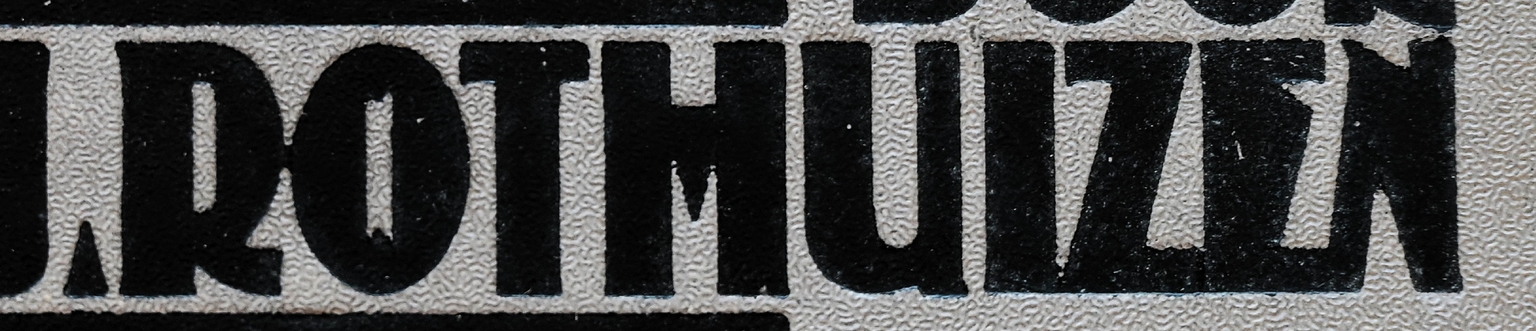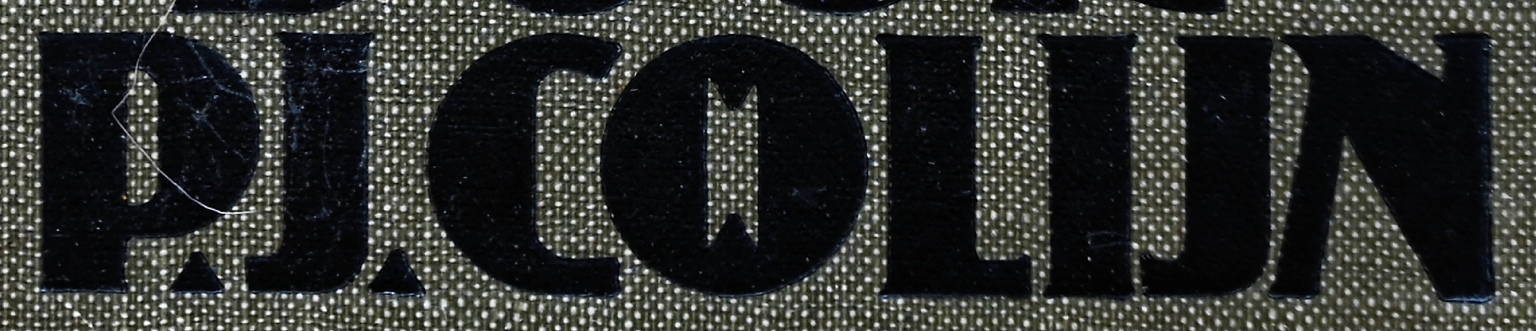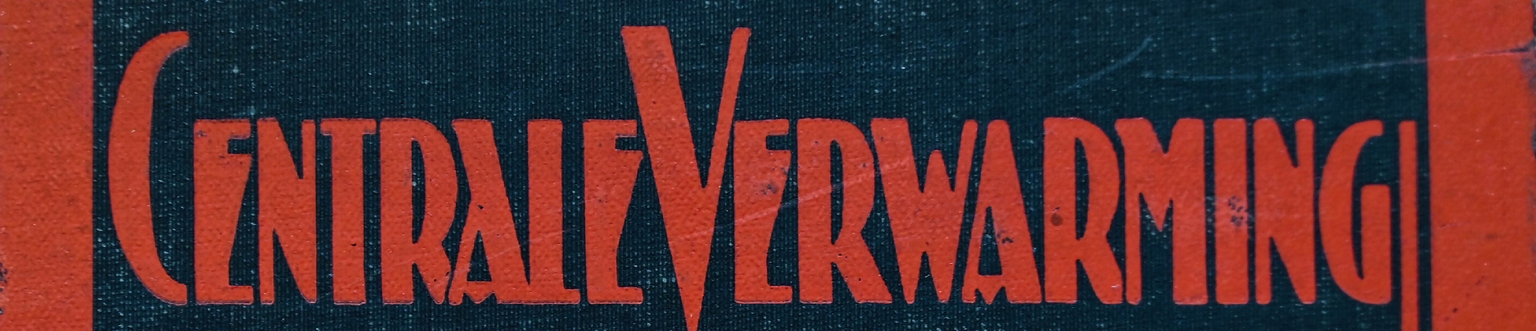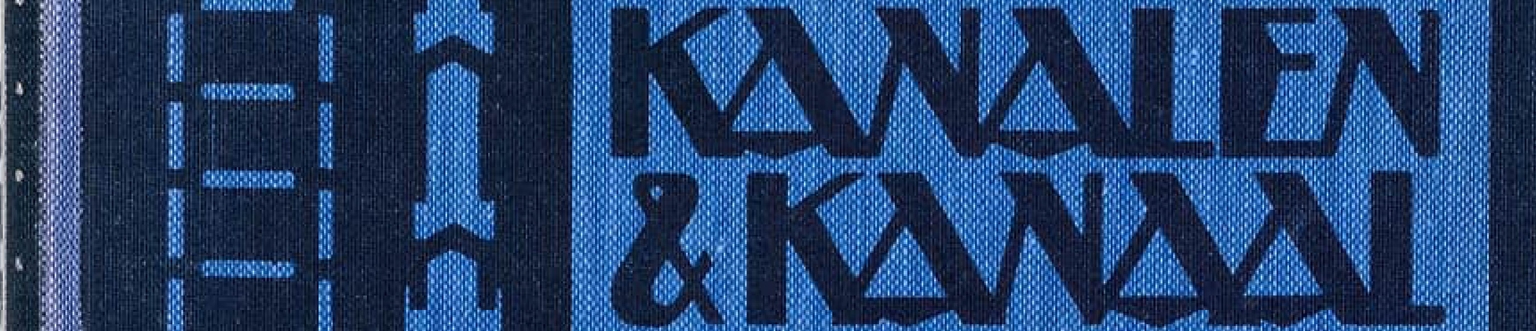
Omslag
Omslag (Dutch for “cover”) is based on lettering designed by Anton (Antonius) Kurvers (1889–1940) for several books published by the progressive Dutch publishing house N.V. Uitgevers-Maatschappij.
This typeface features stylistic elements typical of those produced by architects of the Amsterdam School—a group with which Kurvers collaborated. Its proportions and the design of several letters resemble the model used on numerous Amsterdam bridges, a design that may also have been created by Kurvers during his time at the Office of Public Works of the Municipality of Amsterdam.
As a declared admirer of Kurvers’s work, Ramiro Espinoza decided to adapt this design for typographic use, as he has done with other Kurvers letterings—enhancing the overall consistency and redefining the proportions of certain letters. The result is a uniquely recognizable font with a strong expressionist character, well-suited for posters, book covers, museum catalogs, Dutch beer and gin labels, and websites or campaigns promoting music festivals.